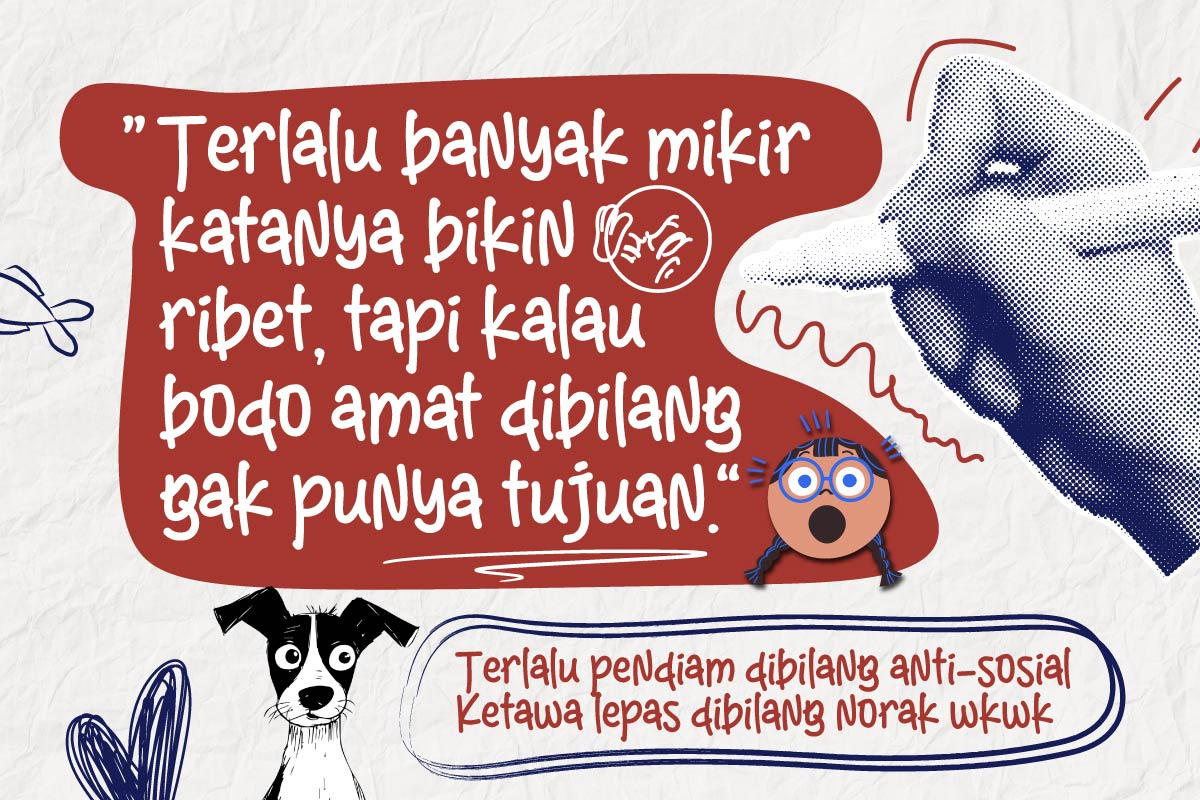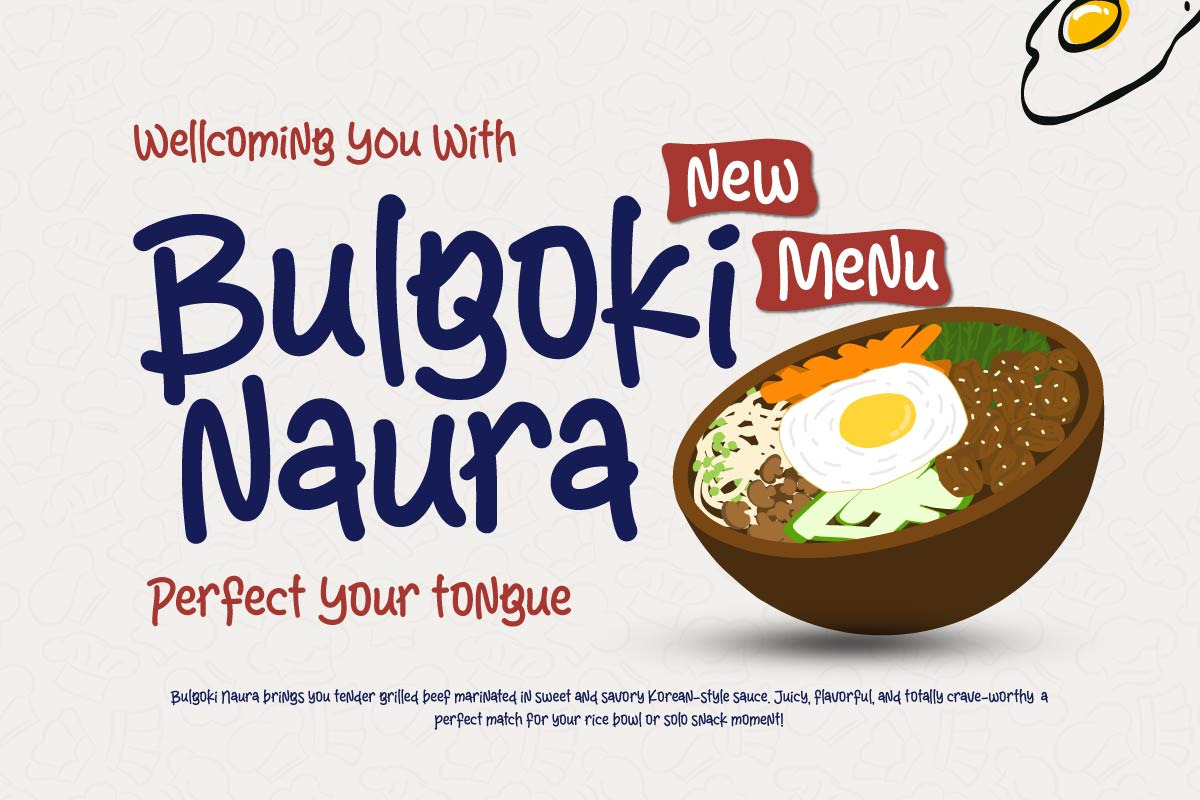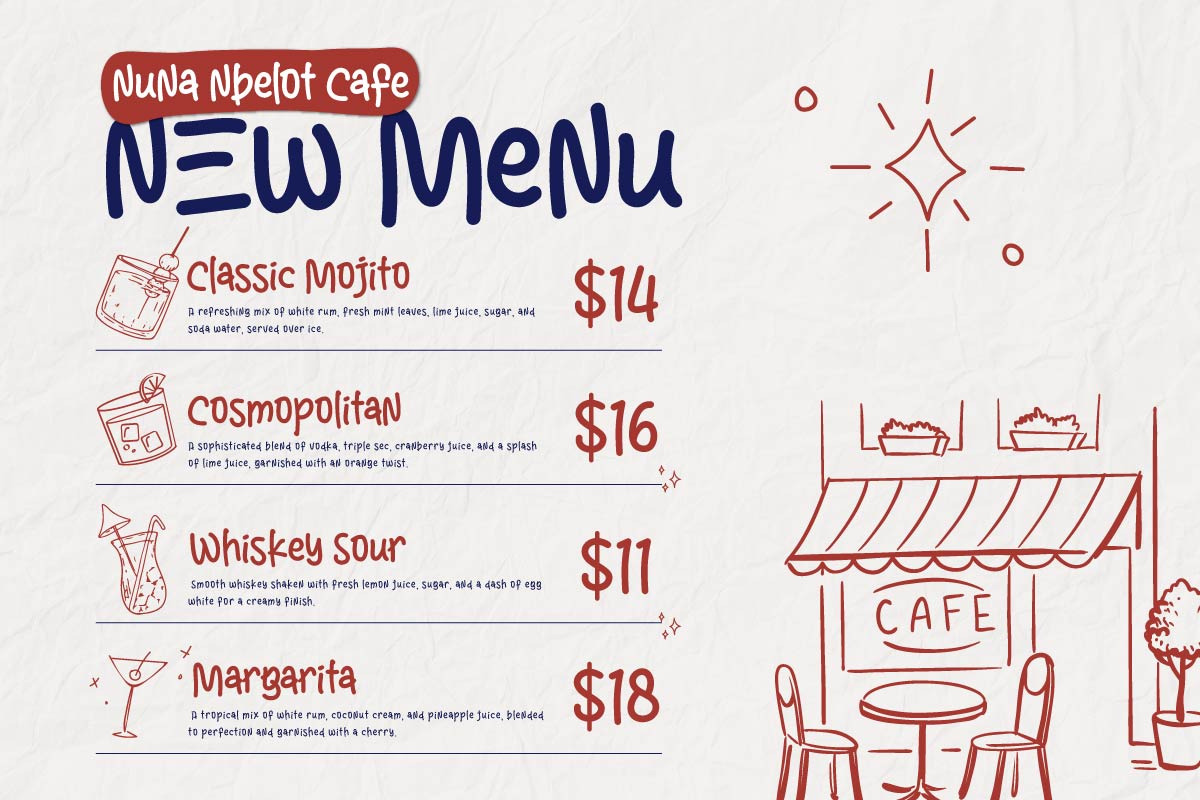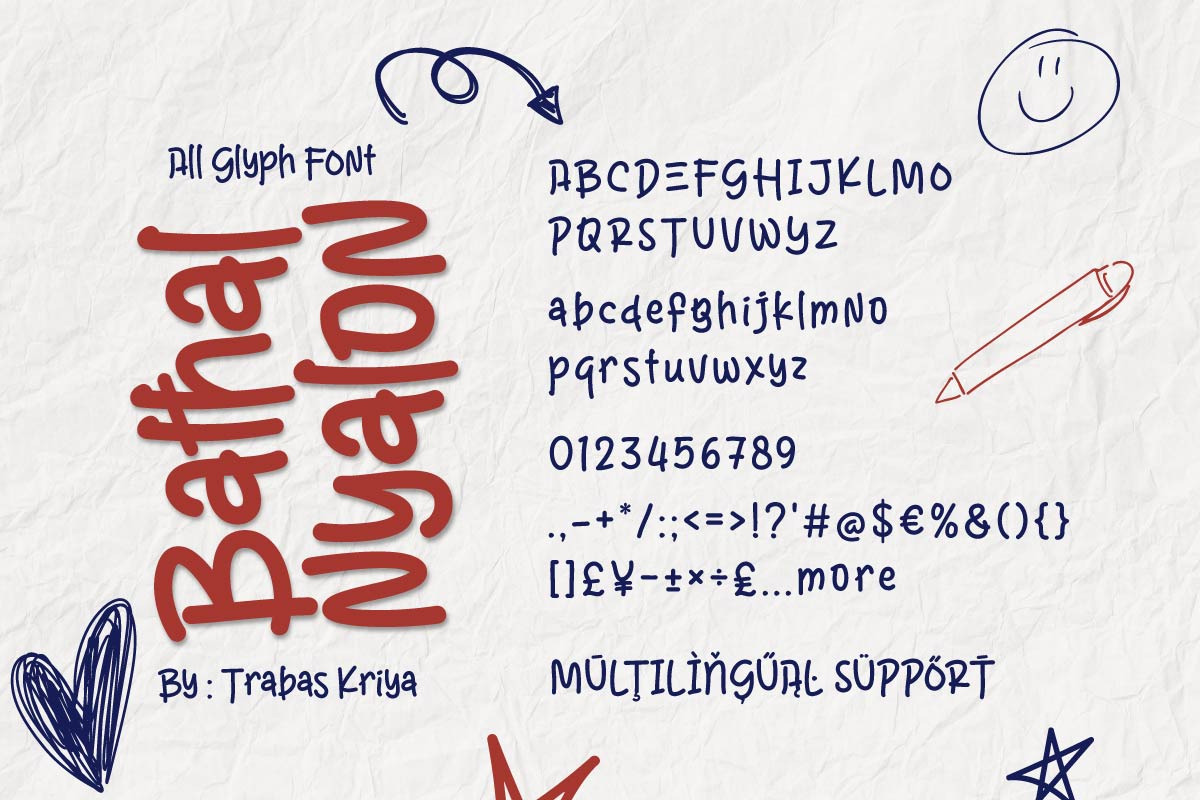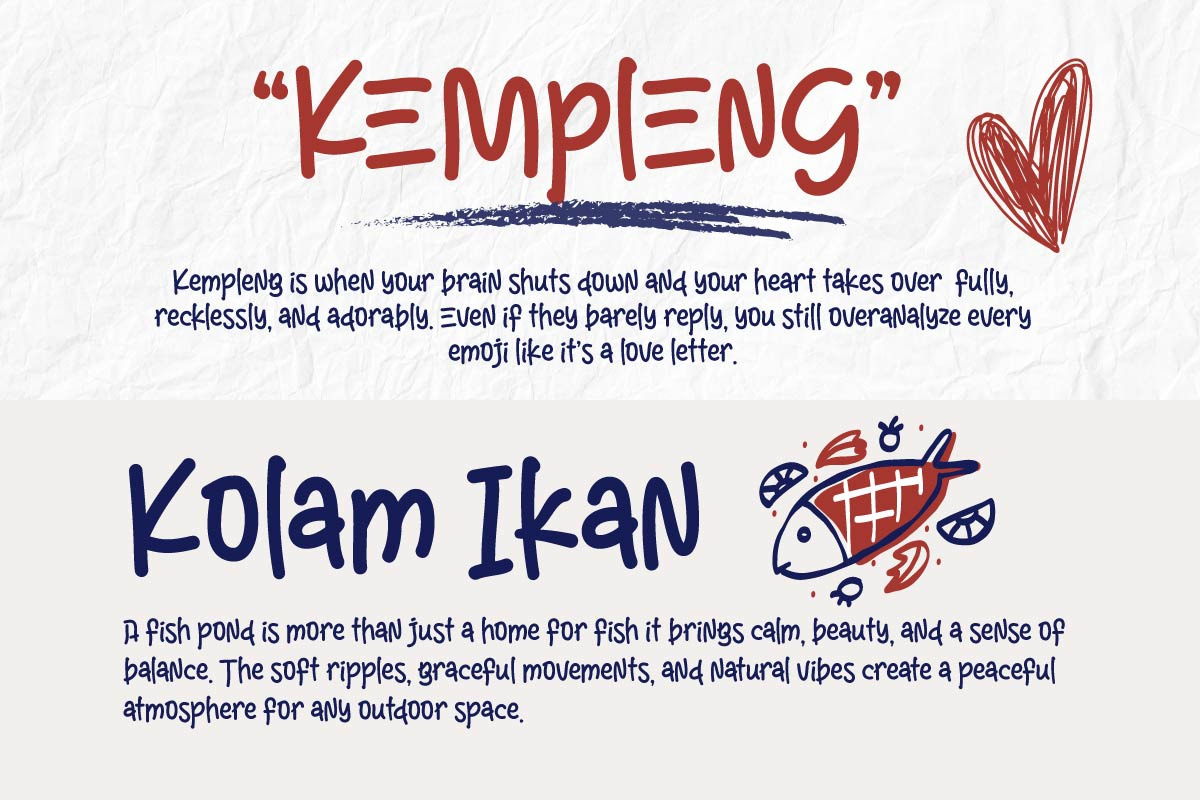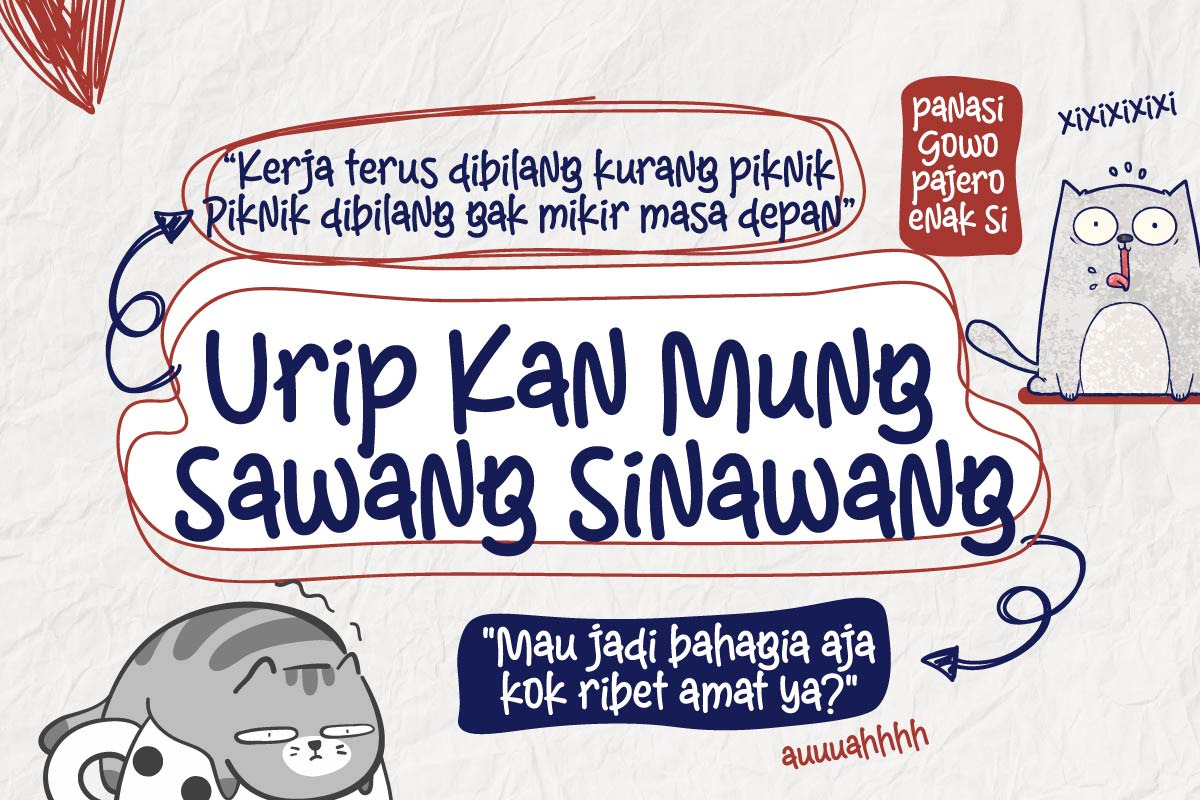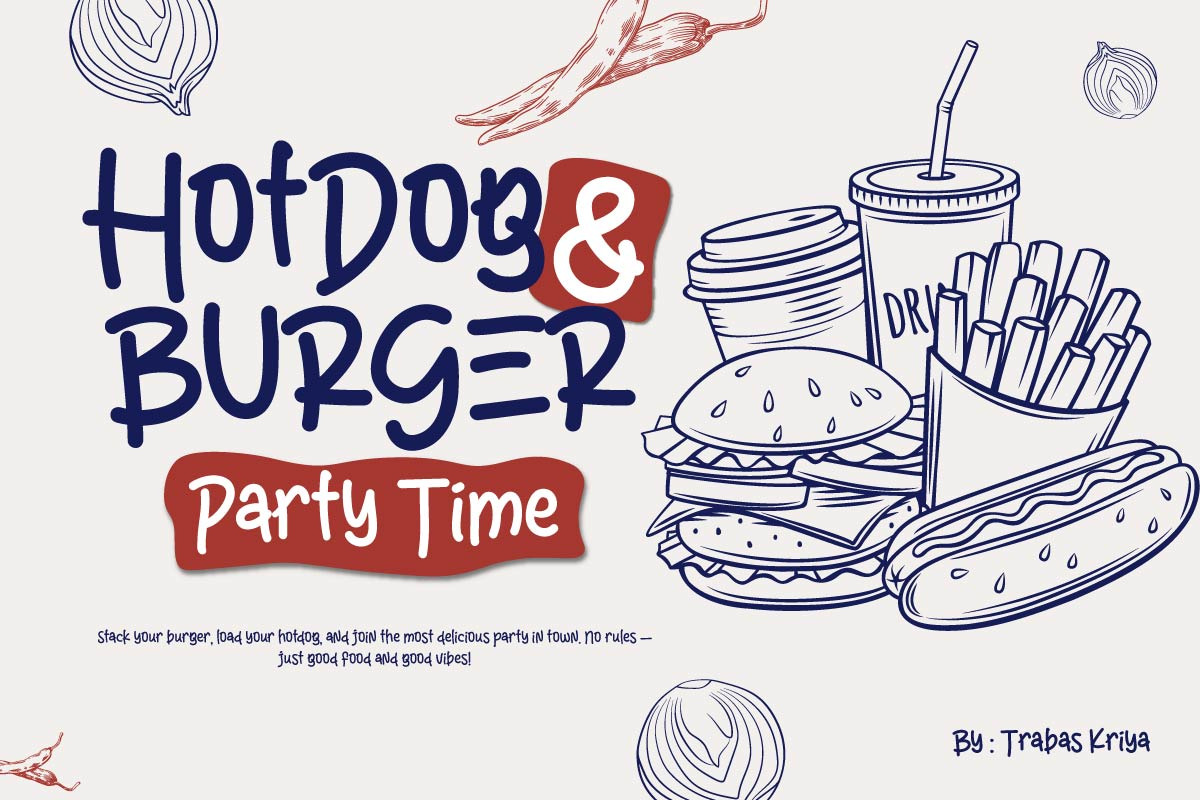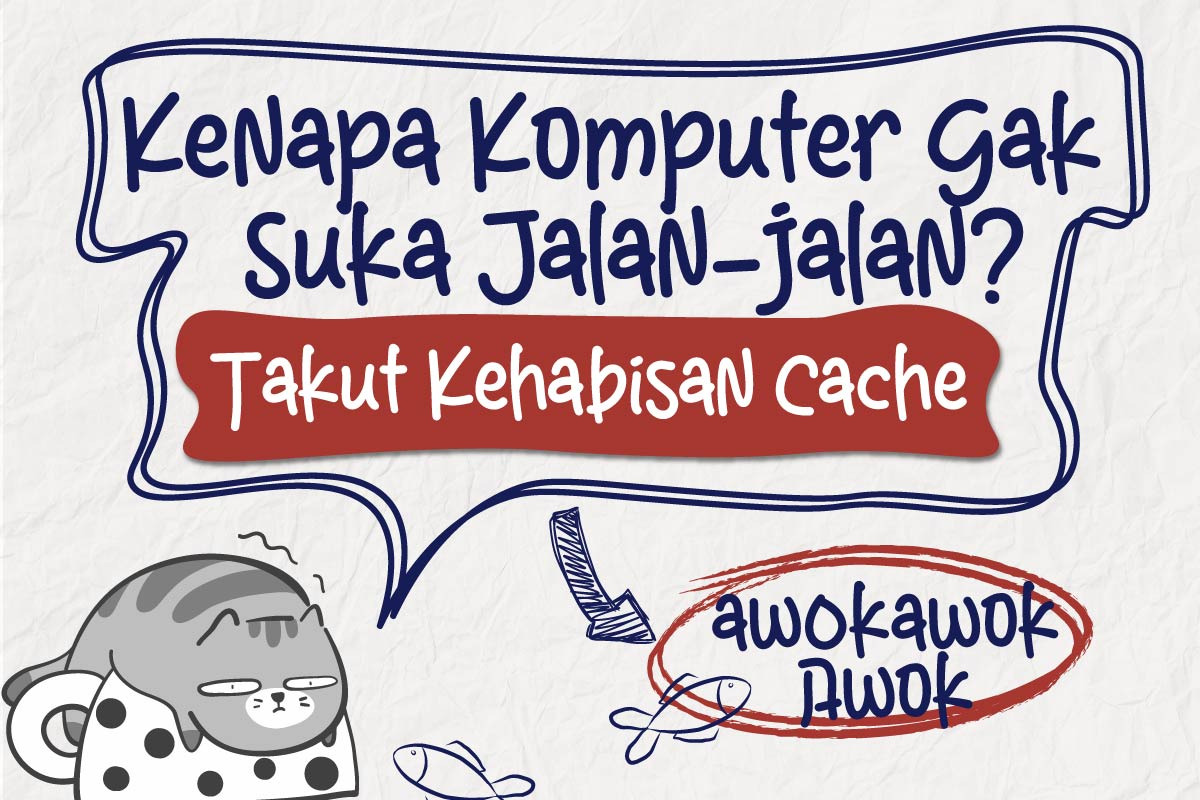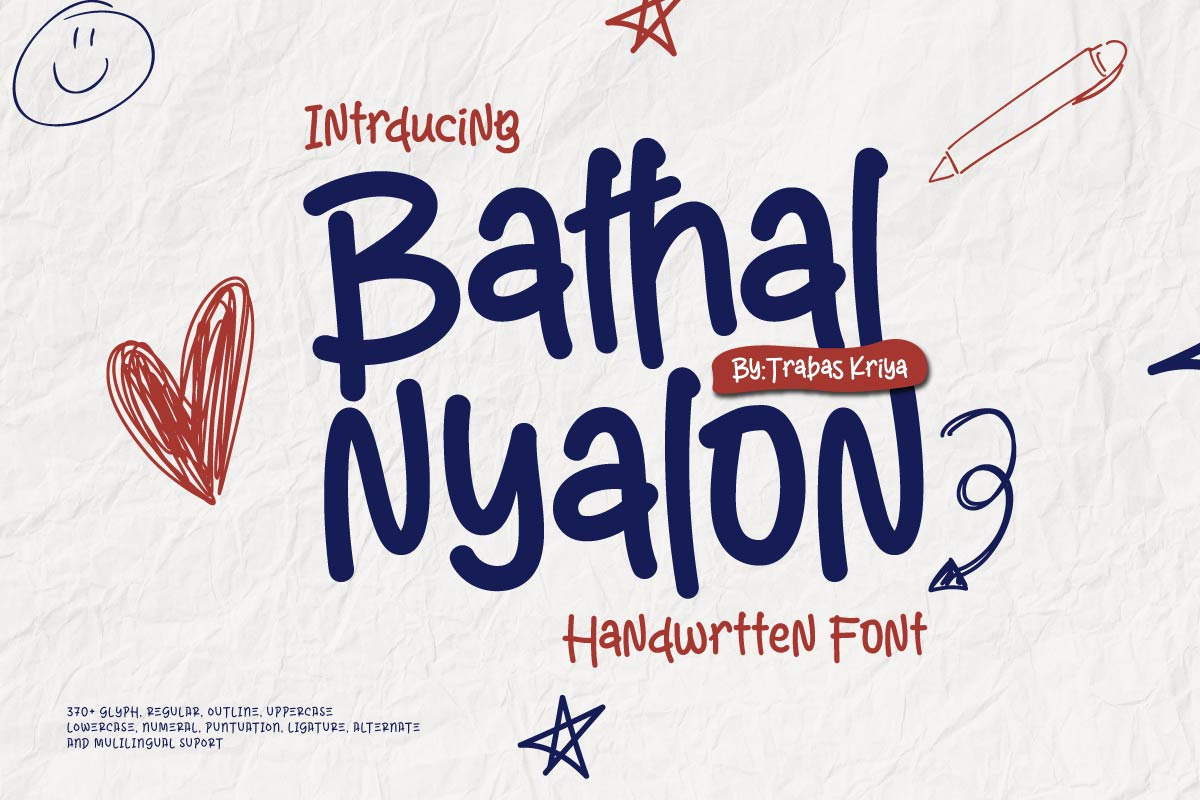
Bathal Nyalon - Handwritten Font
"Bathal Nyalon is a handwritten font that conveys warmth, honesty, and a touch of playful mischief. Crafted with natural-looking strokes and an organic rhythm, this font is designed to convey a personal expression unmatched by traditional digital fonts.
With its free yet legible letterforms, Bathal Nyalon is suitable for a variety of creative applications, from handmade product branding and food packaging to wedding invitations and even social media quotes that seek a more humane feel.
Each letter feels like a sincere stroke, bringing words to life with a personal and touching nuance. Whether for playful, warm, or emotional designs, this font provides an authentic and irreplaceable ""handmade"" touch.""handmade"" touch.
Use Bathal Nyalon to bring your designs to life with personality and emotion. Because in a digital world, something that feels human is the most valuable thing.